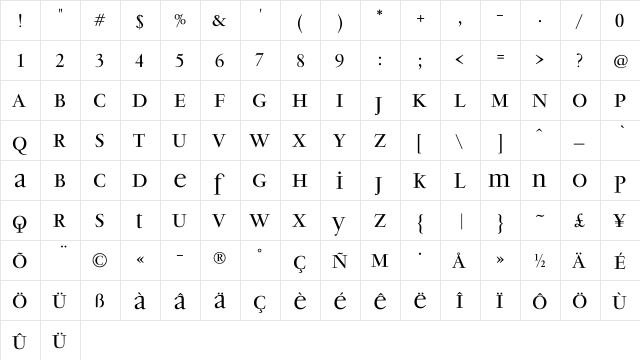
PF Garamond Classic Display Bold
Design Context for PF Garamond Classic Display Typeface
PF Garamond Classic Display wears its vintage influences proudly, with letterforms that recall mid-century signage, classic packaging, and nostalgia-driven design. Its bold stroke weight gives it real presence on the page.
Font Pairing: Combine PF Garamond Classic Display with a simple slab or neutral sans — period-accurate companions reinforce the vintage feel without competing for attention.
Pro Tip: Lean into PF Garamond Classic Display's period character by pairing it with aged paper textures, muted colour palettes, and vintage illustration styles.